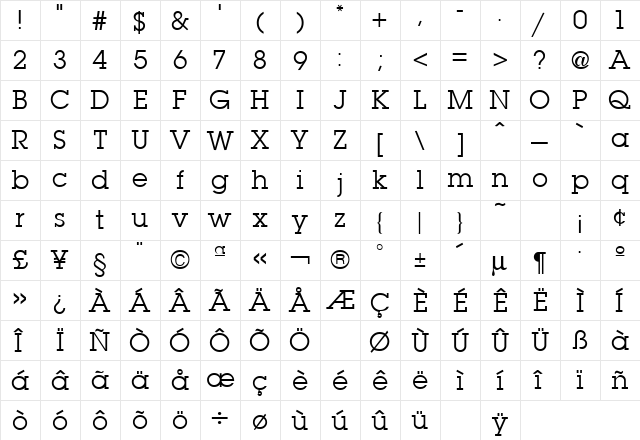
Lubalin Regular
Design Context for Lubalin Typeface
Lubalin takes a measured approach to typography — its balanced proportions and neutral character make it a reliable workhorse for both digital and print work.